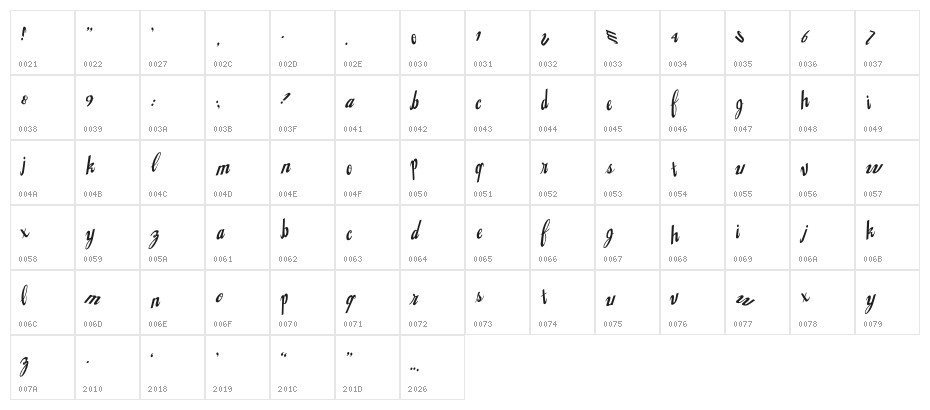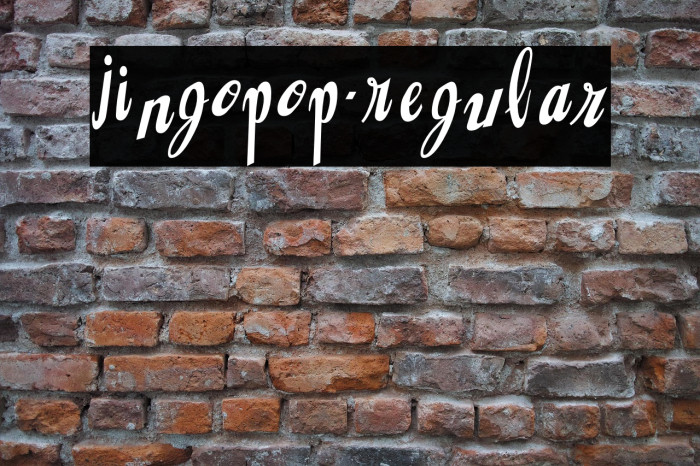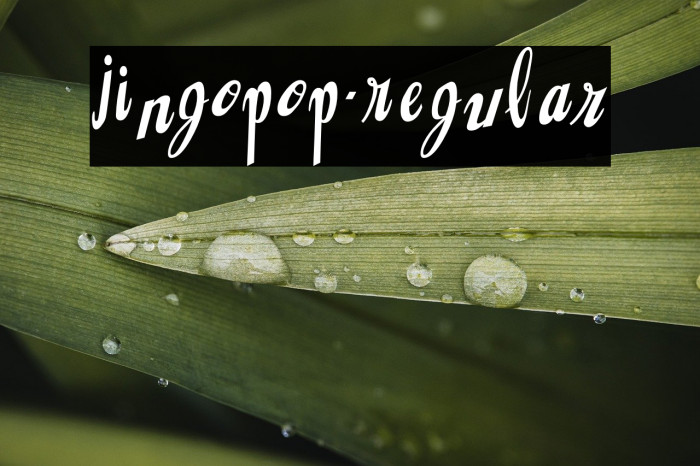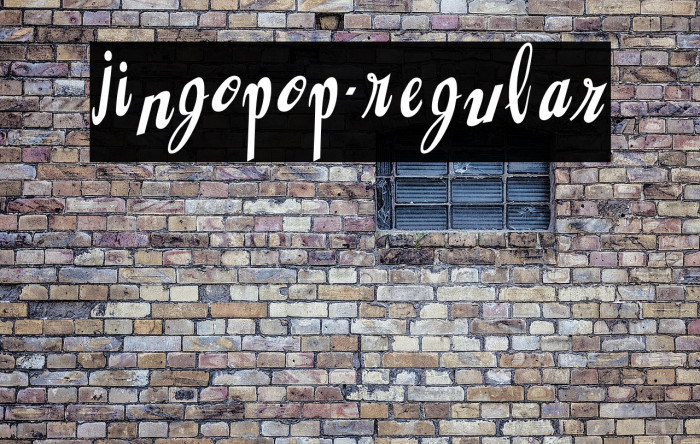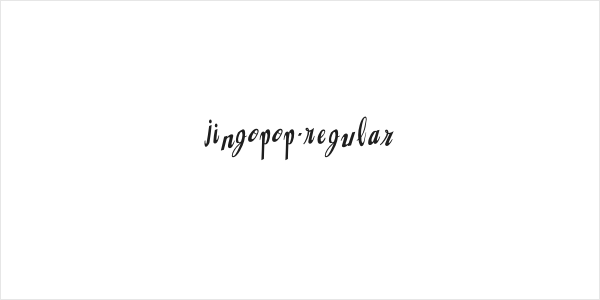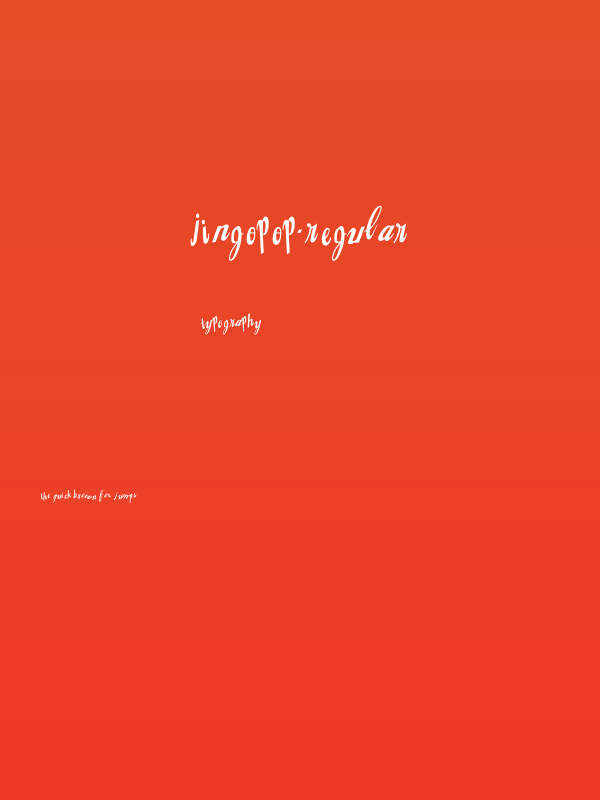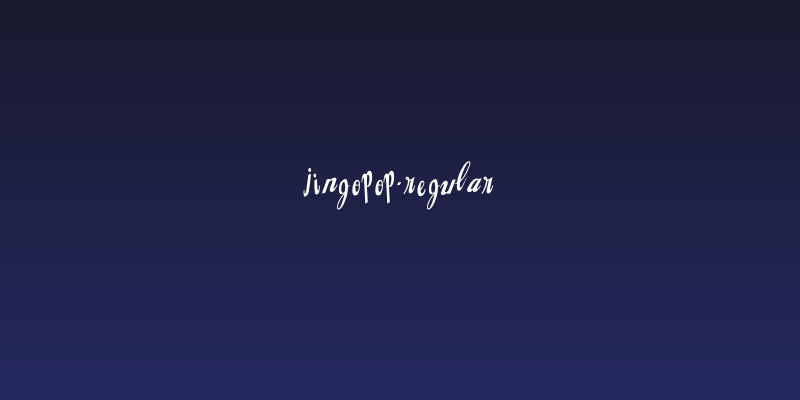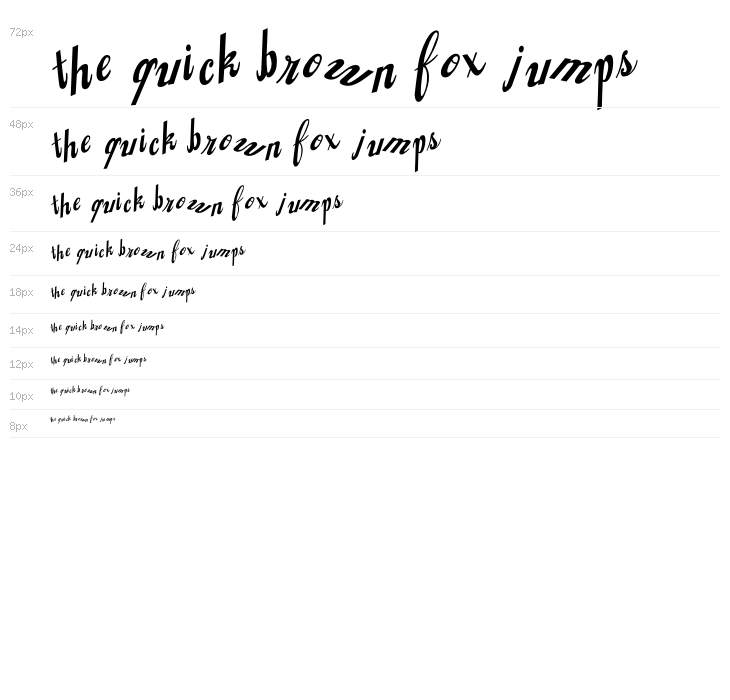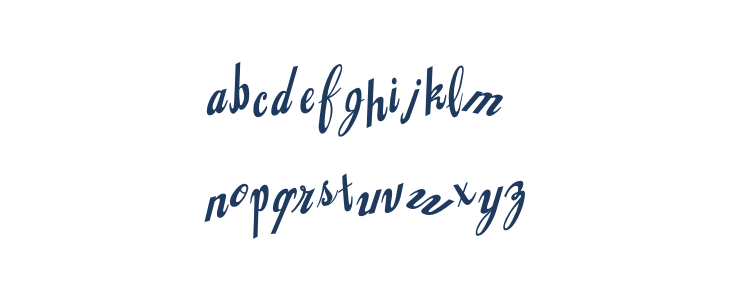
Jingopop-Regular Font
Jingopop-Regular Description
This font exhibits a playful and dynamic handwritten style, characterized by its fluid and slightly slanted letterforms. The strokes are varied, with some letters featuring bold, sweeping curves and others maintaining a more delicate appearance. The overall design is lively and expressive, making it suitable for creative and informal applications. The numerals and special characters maintain the same whimsical style, ensuring consistency across different uses. This font's unique personality makes it stand out, adding a touch of flair to any project.
| Proposed Projects | Ideal for greeting cards, invitations, playful branding, and social media graphics. |